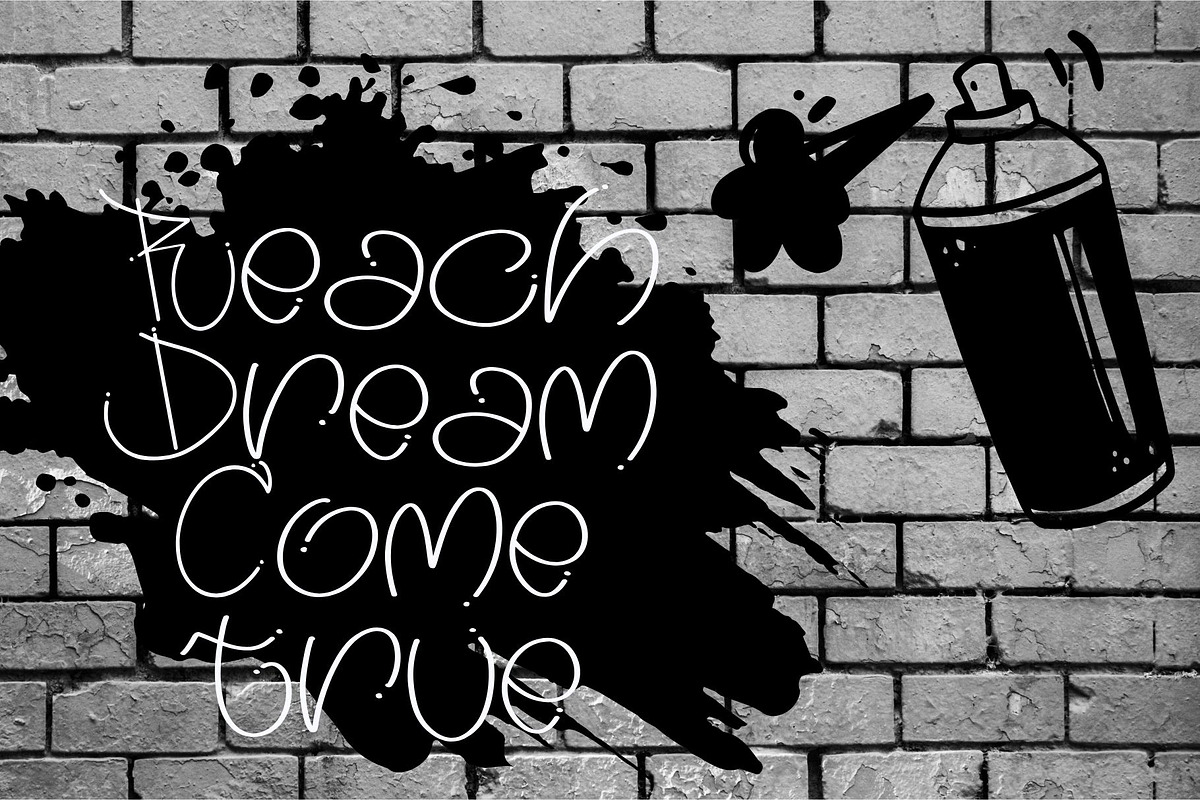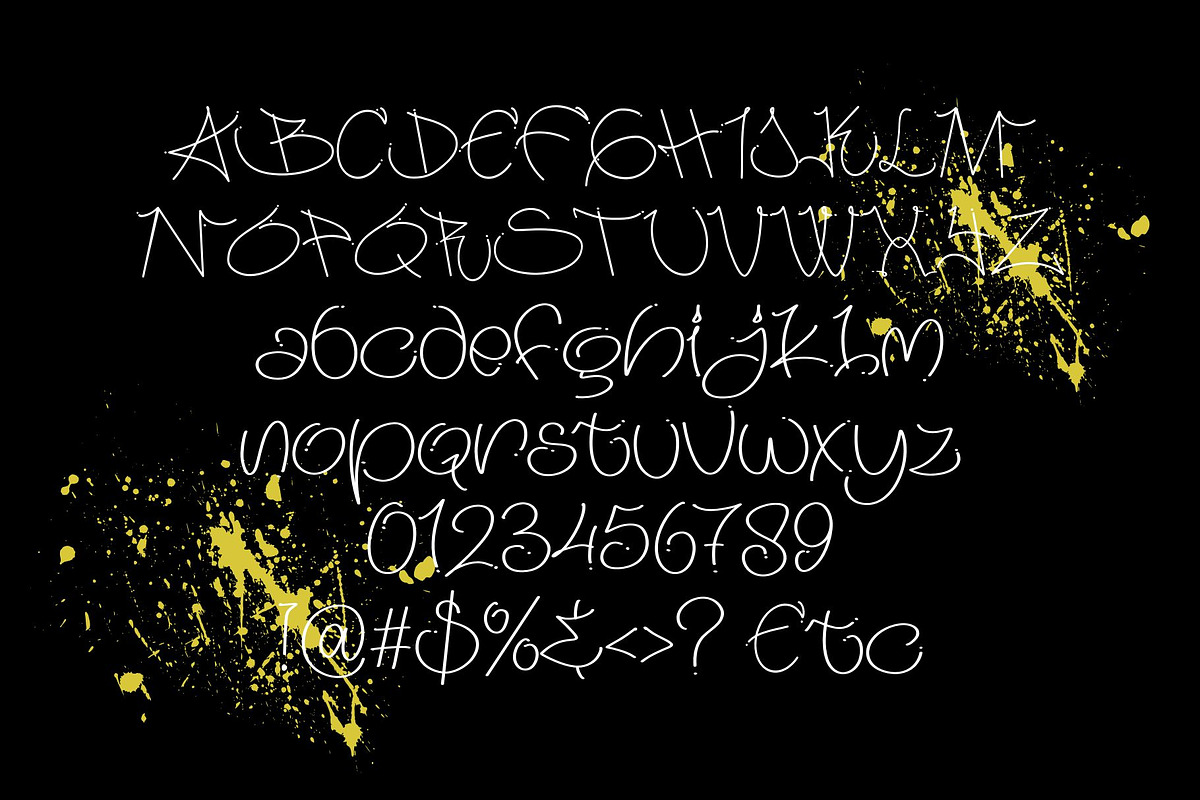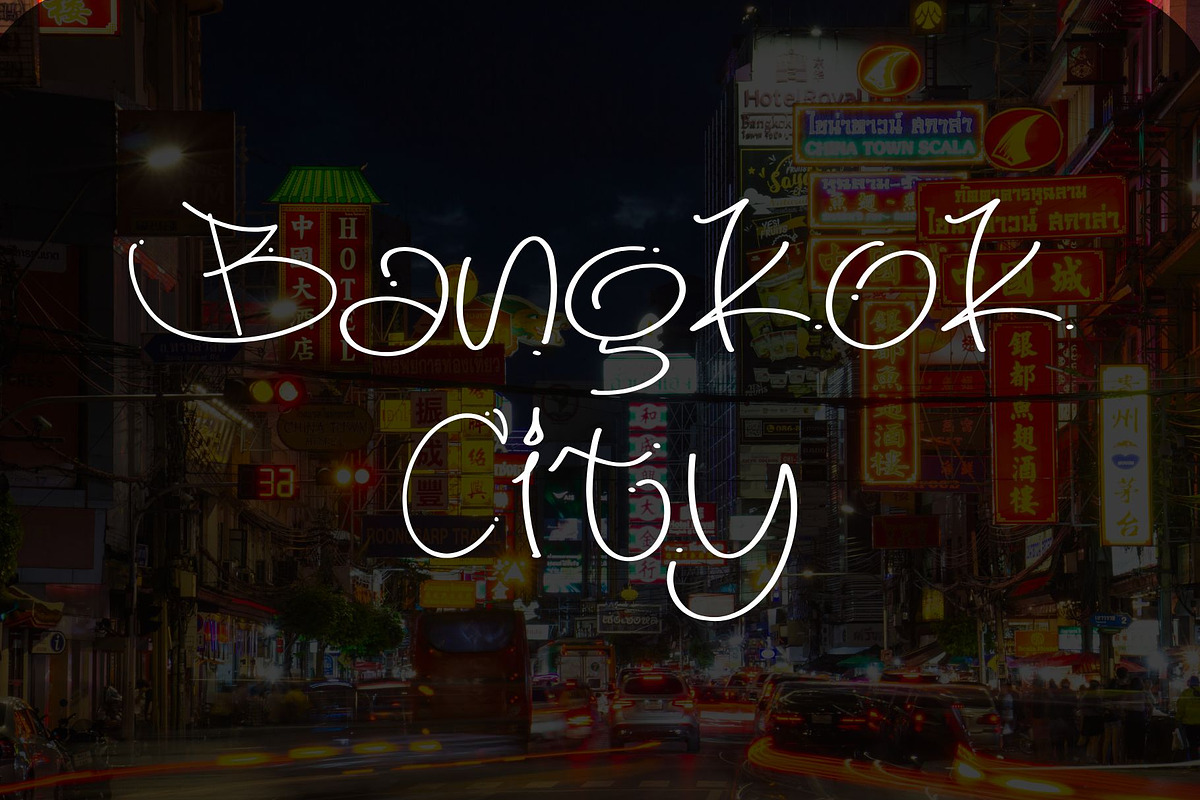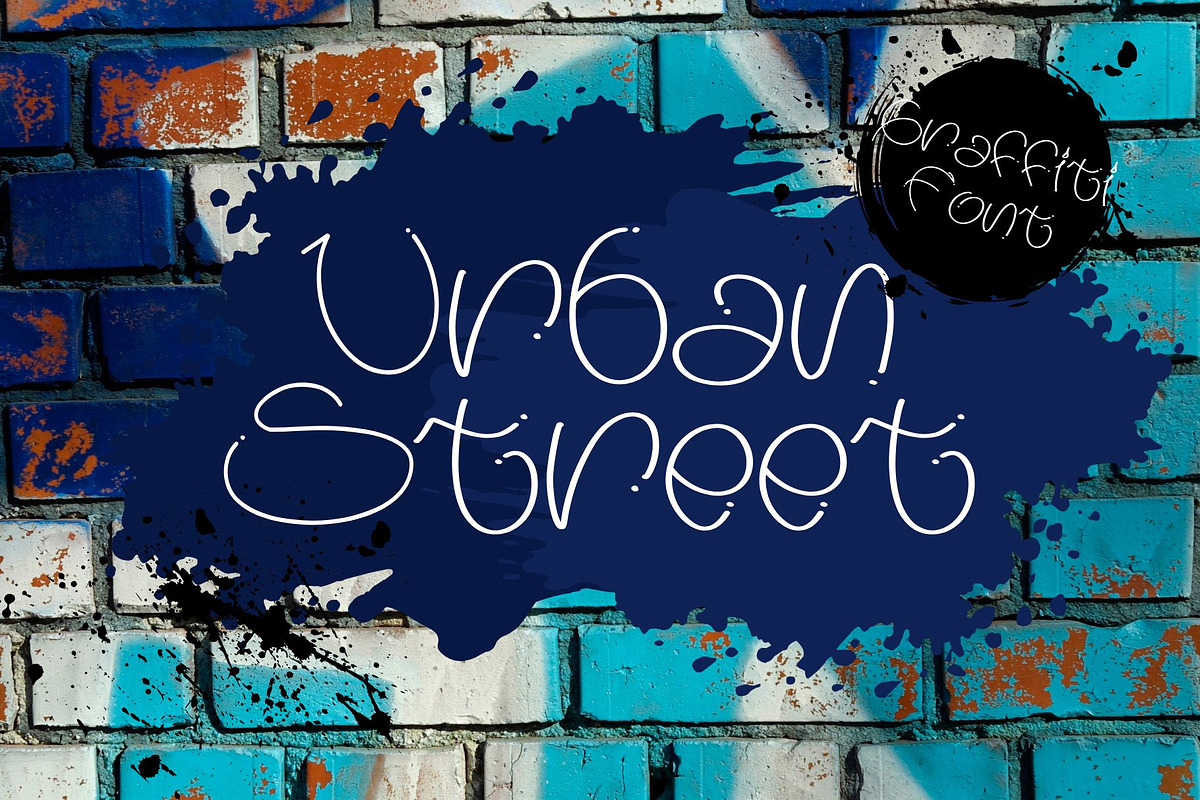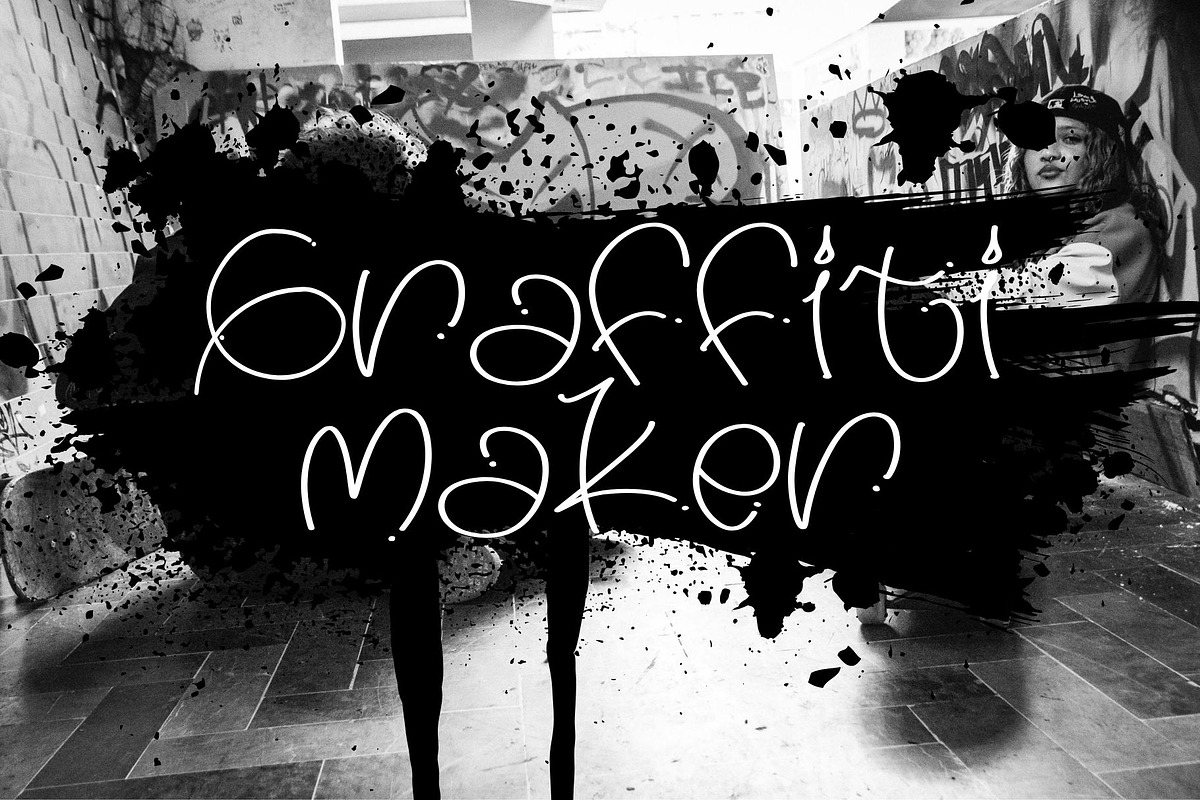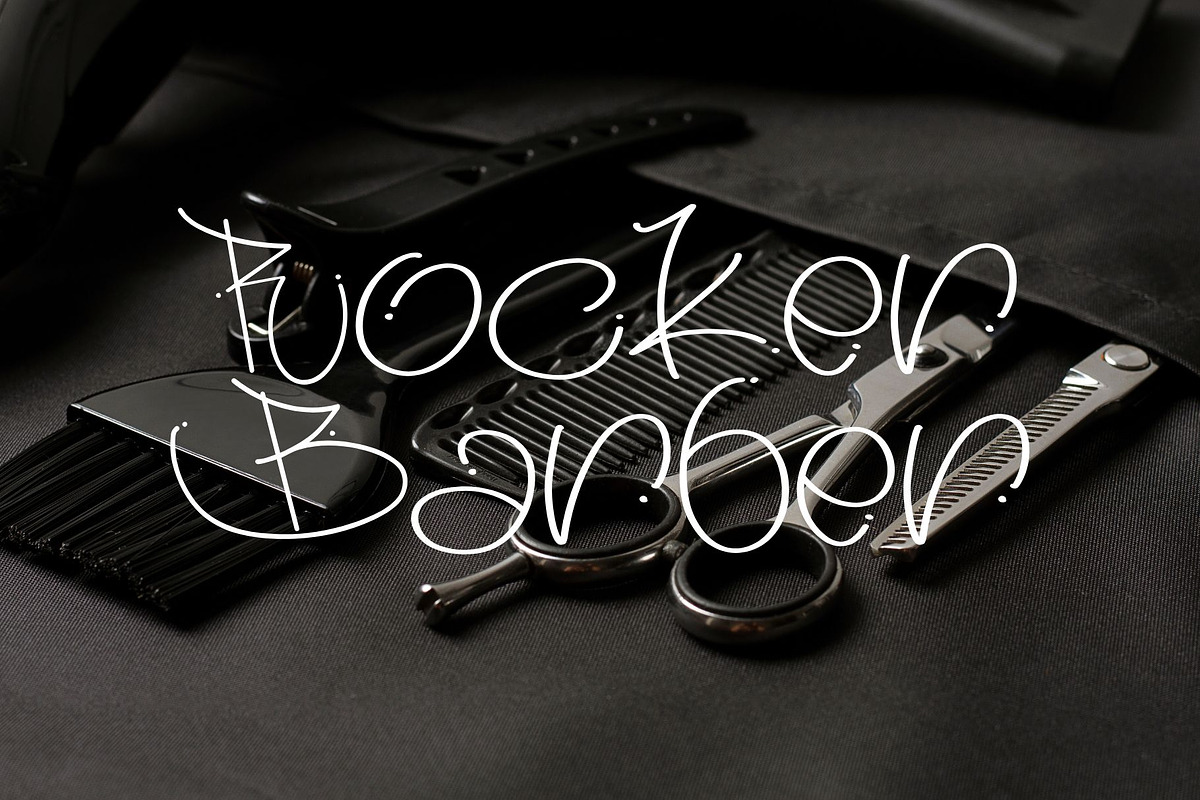
Urban Street
Urban Street is a modern graffiti-inspired display font that combines the raw energy of street art with an elegant, handwritten touch. Characterized by its fluid, rounded letterforms and subtle decorative dots, this typeface captures the essence of urban expression while maintaining legibility and style. Ideal for streetwear branding, youth-focused advertising, album covers, posters, or any design project that seeks to evoke a contemporary, rebellious, and artistic atmosphere.